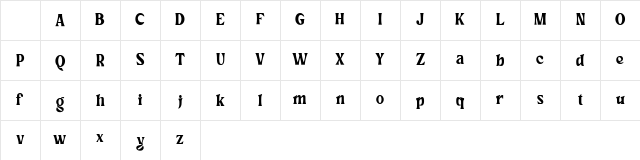
Complete Syntage DEMO Regular glyph index. Displaying only characters natively supported by Syntage DEMO Regular font.
Syntage DEMO is a composed and adaptable typeface that performs quietly and consistently across a wide range of design contexts.